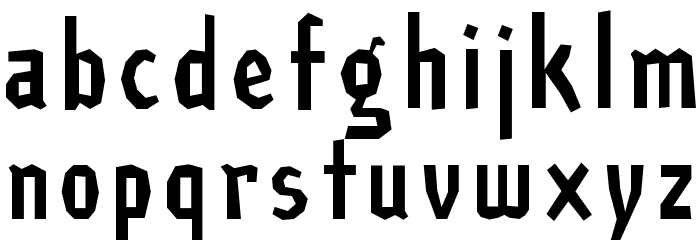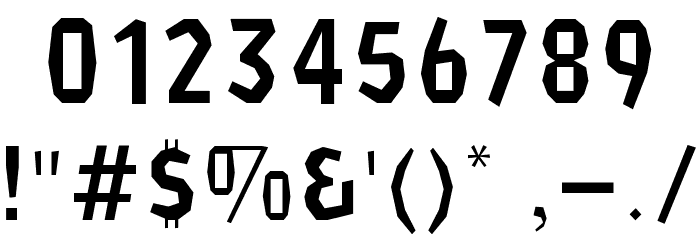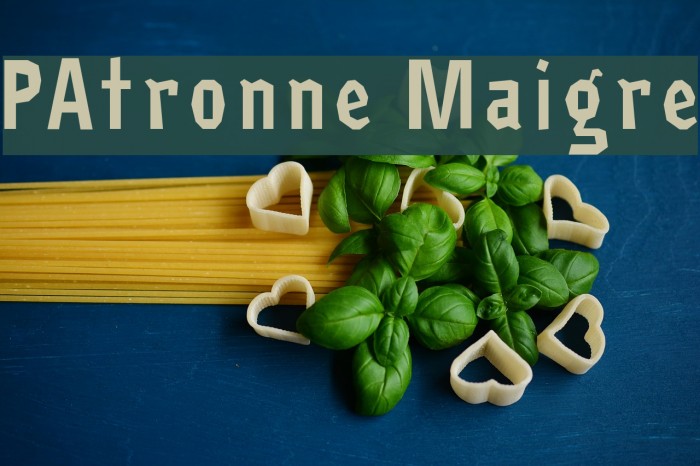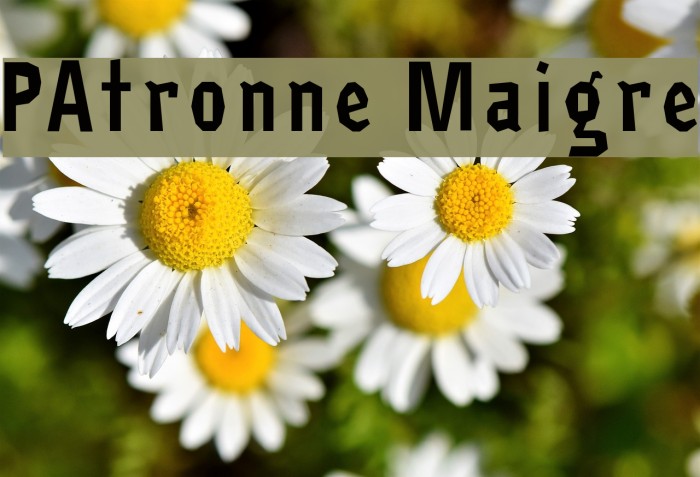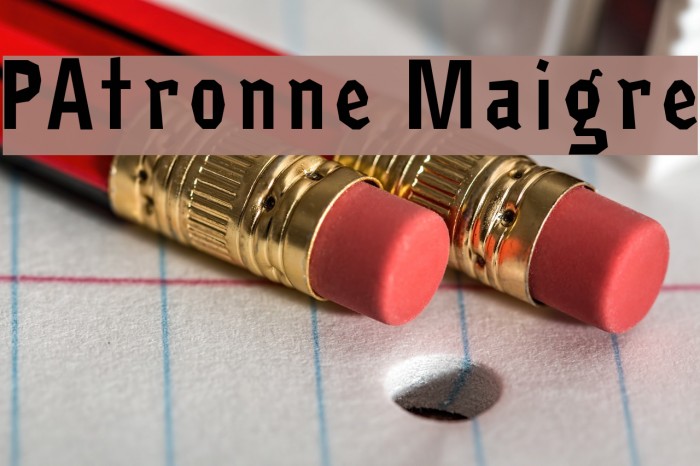
PAtronne Maigre Font
This font features a bold and angular design with a distinctly geometric style. The uppercase letters are robust and assertive, with sharp edges and a modern aesthetic. The lowercase letters maintain the same angular characteristics, providing a cohesive look throughout. Numbers are equally bold and geometric, ensuring readability and impact. Special characters are designed to match the overall style, making them suitable for various design needs. The font's unique style makes it ideal for projects that require a strong visual presence.
A bold, angular geometric font with a modern aesthetic.
- Font: PAtronne Maigre
- Proposed Projects: Ideal for branding, posters, headlines, and any design requiring a strong, modern look.